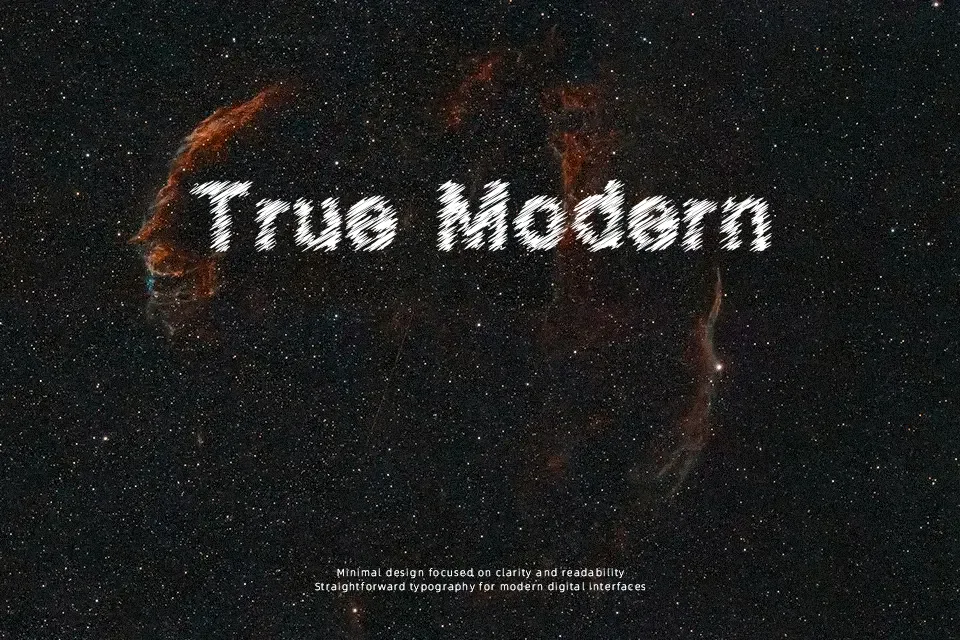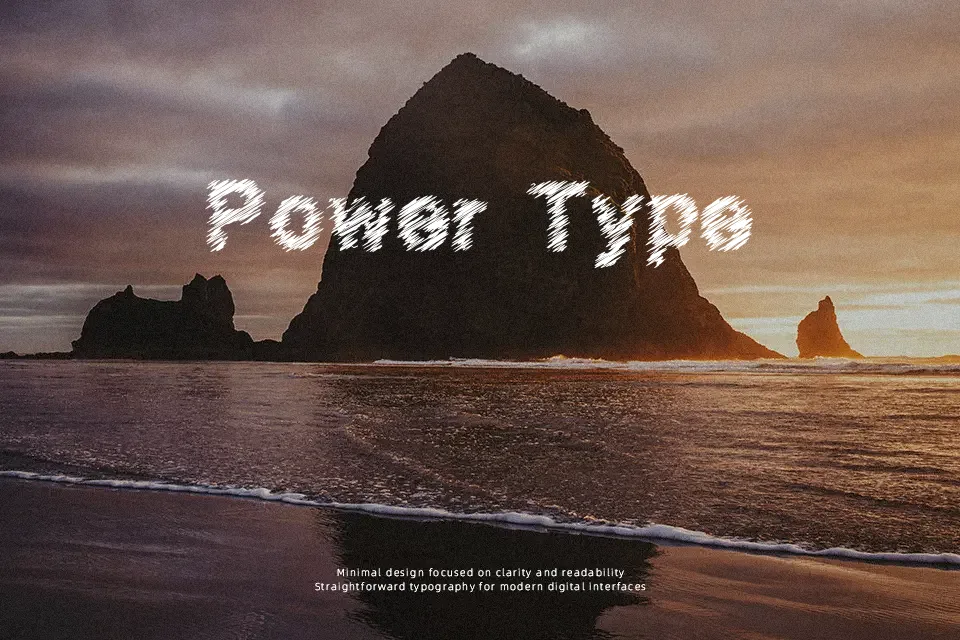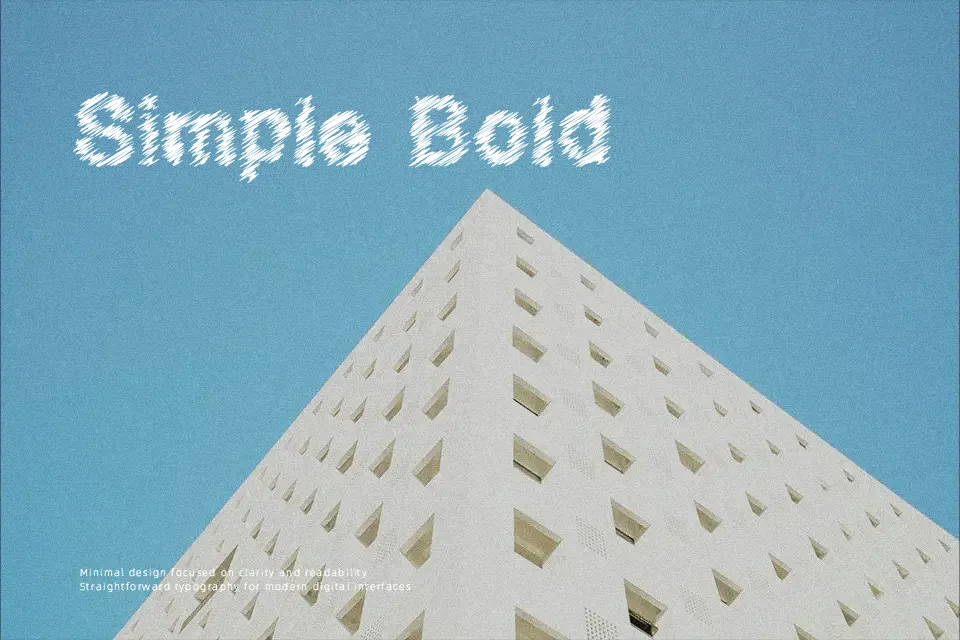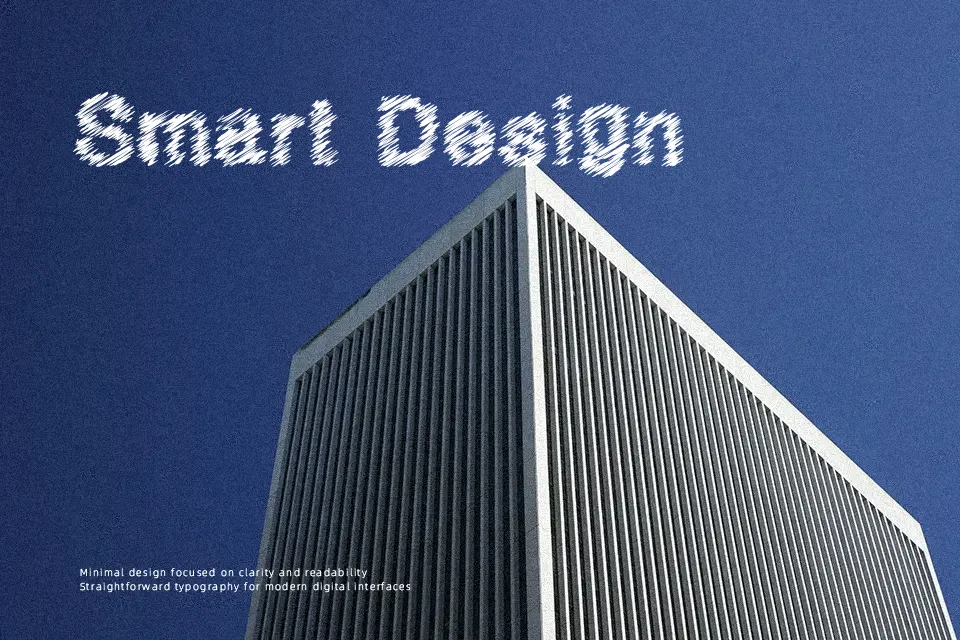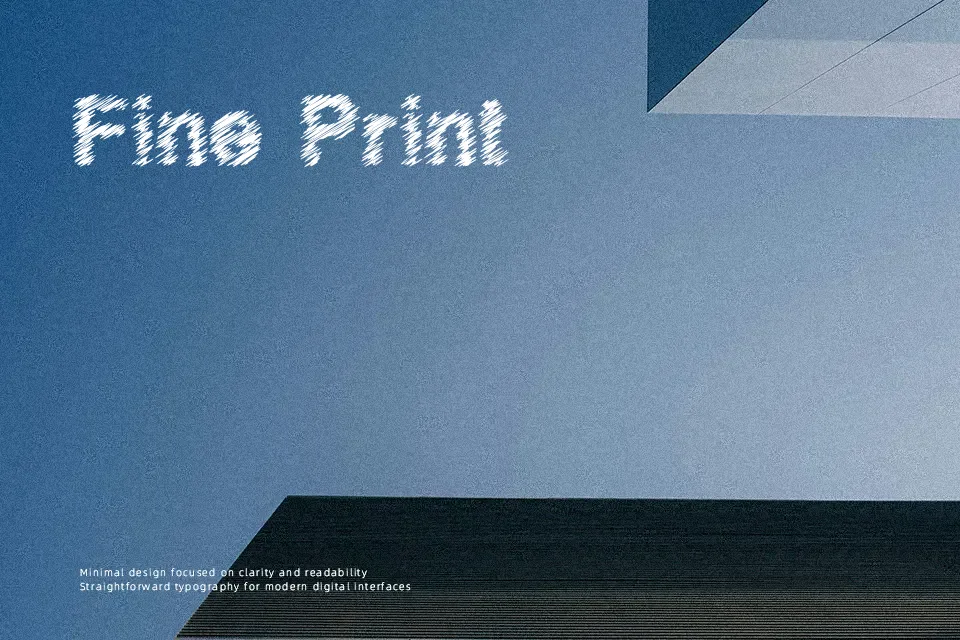
Quick Scratch Font
Quick Scratch Font introduces an aggressive, hand-drawn aesthetic characterized by its heavily distorted letterforms and erratic stroke weights. The typography relies on a chaotic visual rhythm, utilizing rough textures and unpredictable angles to create a raw, unpolished atmosphere. Uneven baselines and distressed terminals give the design a frantic, expressive energy that immediately captures attention in large formats. These jagged forms are incredibly effective for horror movie titles or rebellious street style branding. However, the excessive distortion significantly reduces legibility in smaller applications, making it completely unsuitable for continuous reading or dense editorial layouts. The aggressive stroke variations help maintain a striking presence in massive headlines, proving that its primary strength lies in creating visual texture rather than conveying complex information.
grunge music festival posters
horror movie title sequences
rebellious streetwear apparel graphics
edgy album cover art
continuous paragraph text
small mobile interface labels
corporate branding materials
dense editorial columns
Perfect for branding, headline, and packaging, with a creative and decorative style.